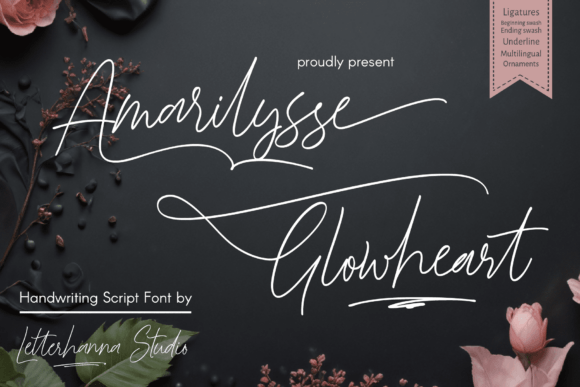
Discover the Elegance of Amarilysse Glowheart Font
Have you ever been in the middle of a design project, and suddenly, you just can’t seem to find the right font? I recall a particularly frustrating experience while working on a wedding invitation project. My client wanted a font that exuded elegance, warmth, and a touch of whimsy. After hours of scouring through font libraries, I stumbled upon Amarilysse Glowheart – a handwriting script font that instantly captured the essence of what my client was looking for.
A Personal Review of Amarilysse Glowheart
- ✨ Elegant and Warm Aesthetic: Amarilysse Glowheart radiates a sense of sophistication and warmth, making it perfect for projects that require a personal touch.
- ✅ Versatility: This font is incredibly versatile and can be used for wedding invitations, branding, social media posts, and personal projects.
- 💫 Smooth Connections and Ligatures: The font features smooth connections, elegant ligatures, and swashes that give it a natural, handwritten feel.
- 🌎 Multilingual Support: Amarilysse Glowheart supports multiple languages, making it an excellent choice for global projects.
While Amarilysse Glowheart is an exceptional font, there are a few minor quirks to be aware of:
- ⚠️ Occasional Kerning Issues: As with many script fonts, you might encounter some kerning issues, especially when using it in combination with other fonts.
- 🤔 Limited Use in Body Text: Due to its elegant and cursive nature, Amarilysse Glowheart might not be the best choice for lengthy body text.
A Practical Guide to Using Amarilysse Glowheart
The Designer Inspiration Behind Amarilysse Glowheart
Amarilysse Glowheart was designed with the intention of capturing the essence of natural penmanship. The designer aimed to create a font that would exude elegance, warmth, and a touch of whimsy. Inspired by the flowing curves and heartwarming strokes of handwritten scripts, Amarilysse Glowheart is a beautiful addition to any design project.
Q: What type of projects is Amarilysse Glowheart best suited for?
A: Amarilysse Glowheart is perfect for wedding invitations, branding, social media posts, and personal projects that require an elegant and warm aesthetic.
Q: Does Amarilysse Glowheart support multilingual languages?
A: Yes, Amarilysse Glowheart supports multiple languages, making it an excellent choice for global projects.
Q: Can I use Amarilysse Glowheart in combination with other fonts?
A: Yes, Amarilysse Glowheart can be paired with other fonts to create a unique visual identity. However, be mindful of kerning and spacing to ensure a harmonious combination.